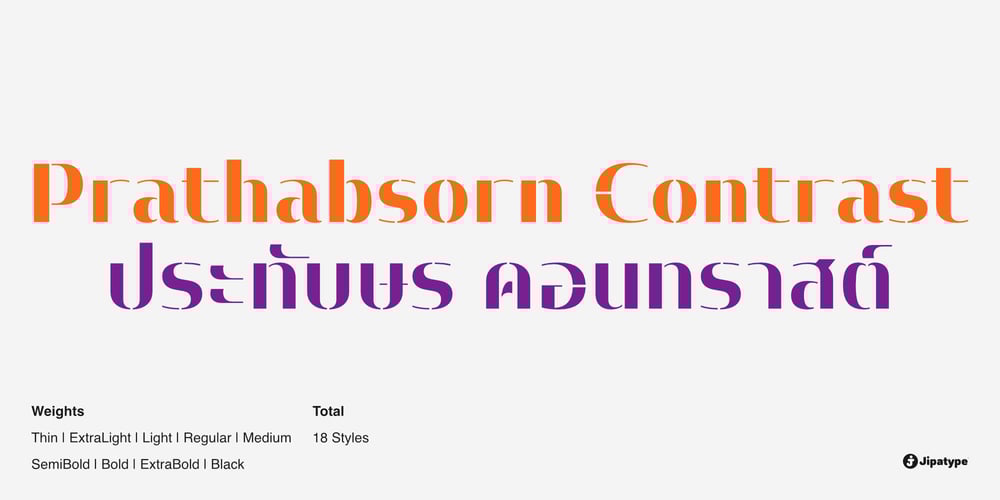
Prathabsorn Contrast Font Family was designed by Anupap Jaichumnan and published by Jipatype. Prathabsorn Contrast contains 18 styles and family package options. Prathabsorn Contrast is a semi-formal sans-serif typeface that incorporates stencil techniques developed from the Prathabsorn typeface. This font consists of 18 styles, covering weights from the thin to the black, supporting both Latin 1 and Thai character sets. The Prathabsorn Contrast typeface is particularly suitable for applications requiring stencil techniques, such as spray-painting text that conveys subtlet